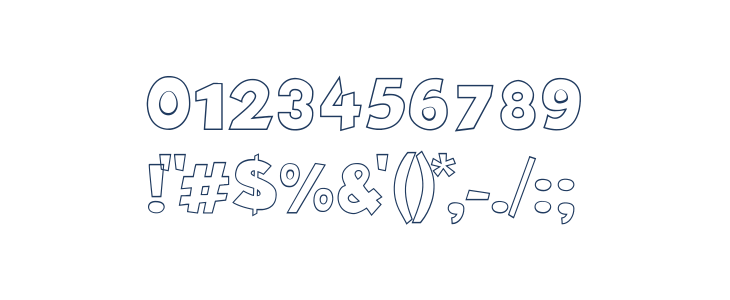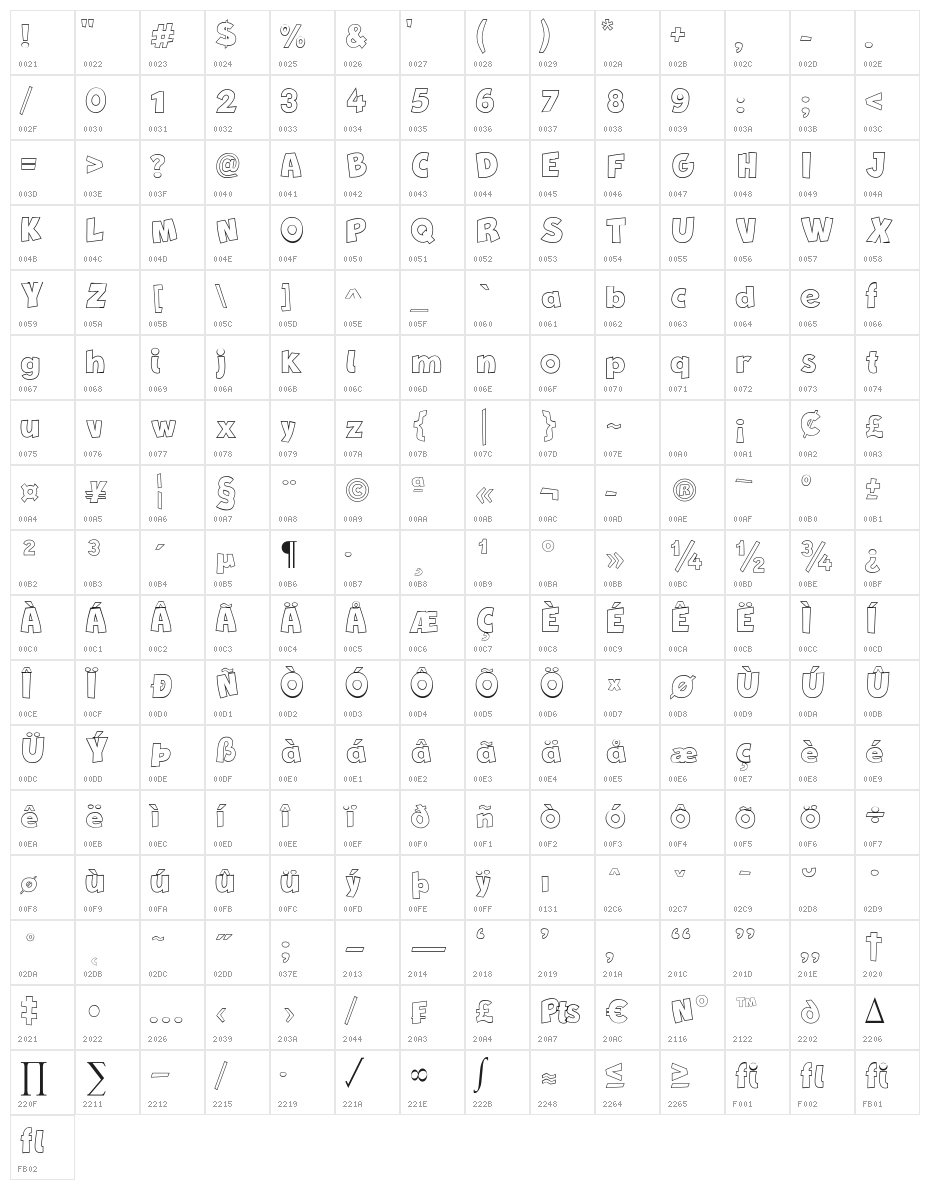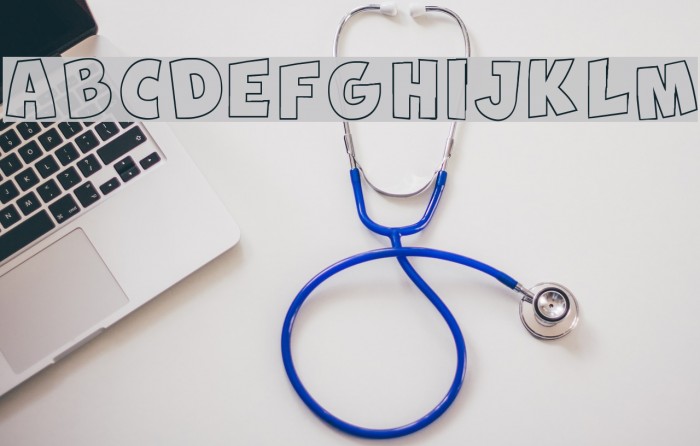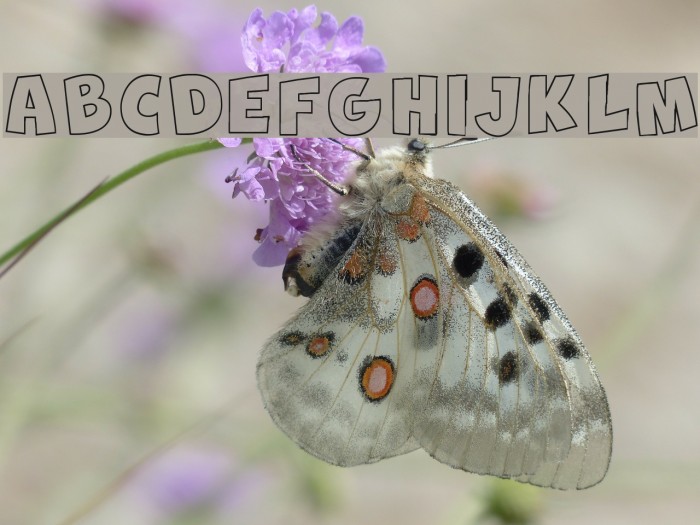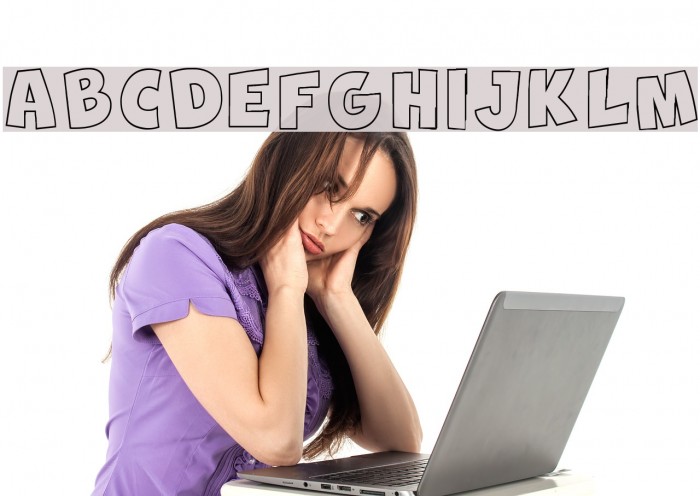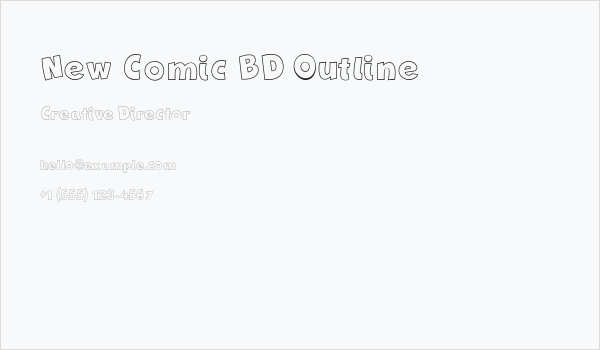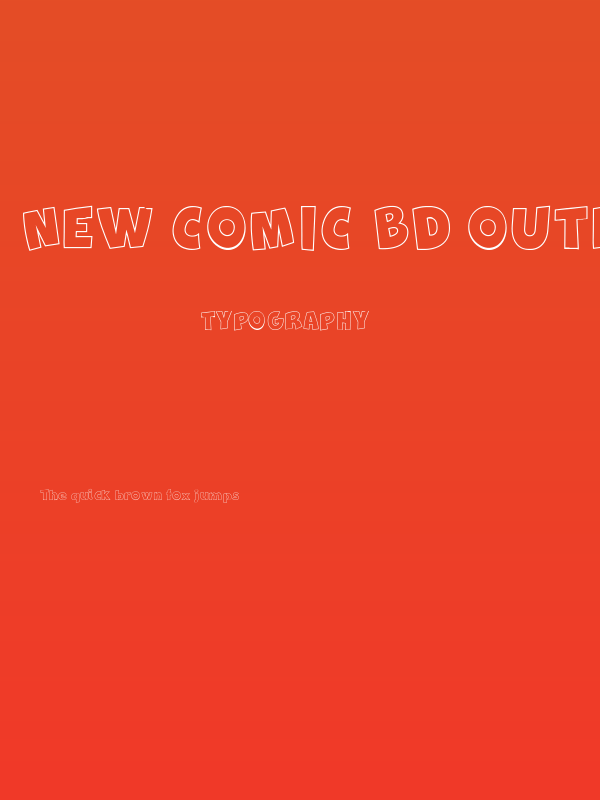
New Comic BD Outline Font
New Comic BD Outline Description
This playful and bold font features an outline style that gives it a comic-like appearance. The characters are rounded and slightly irregular, adding a whimsical and informal touch. The uppercase and lowercase letters maintain a consistent style, with a slight slant that enhances the dynamic feel. The numbers and special characters follow the same playful design, making it suitable for creative and fun projects. The outline effect adds depth and makes the text stand out, perfect for eye-catching designs.
| Overall Style | Playful, Comic |
| Proposed Projects | Ideal for comic books, children's books, playful posters, and creative branding. |